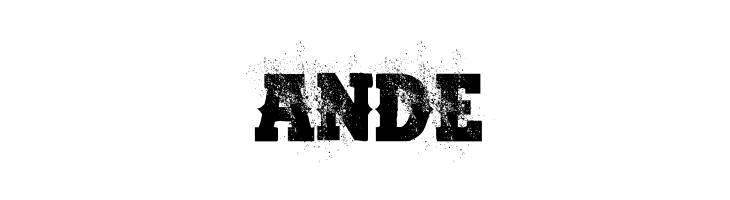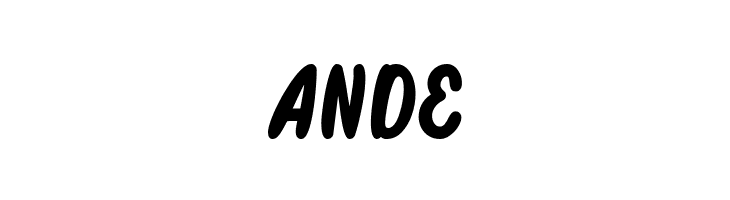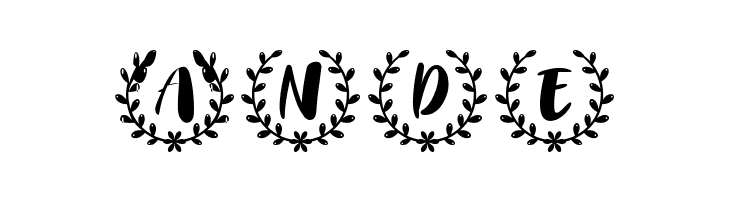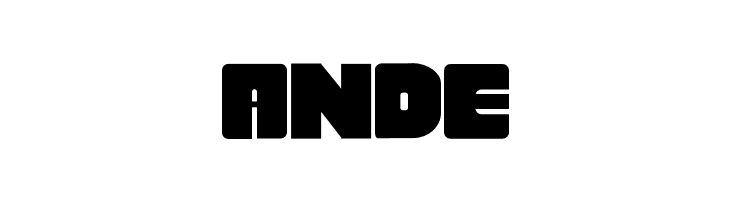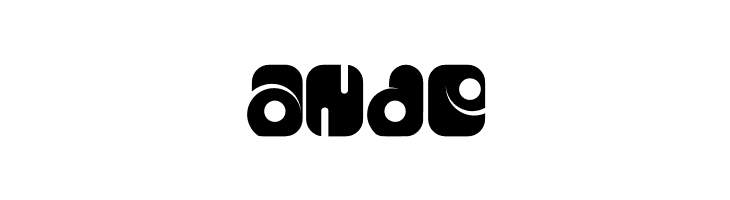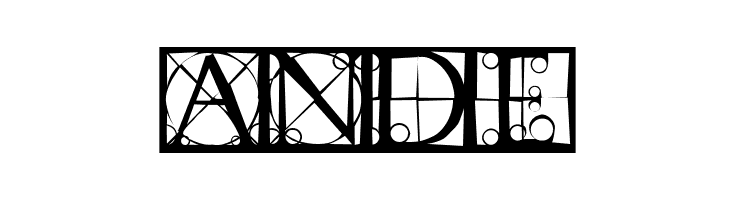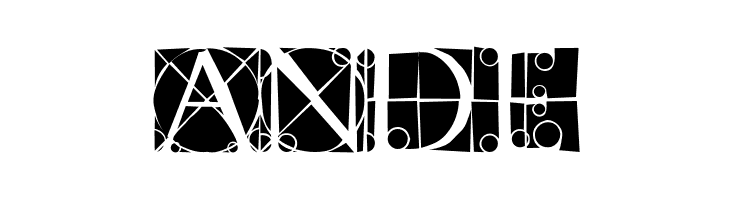
• Cappung
A bold, playful, and handwritten-style font with rounded edges.
• Caprisun Regular
A playful, rounded font with smooth curves and a friendly appearance.
• CAPS
A decorative font with bold letters encased in leafy wreaths, offering a modern and elegant style.
• Caps Lock Regular
A playful, handwritten-style font with consistent strokes and a casual feel.
• CapScratched
A bold, distressed font with a scratched, edgy appearance.
• Capslock
A playful, handwritten font with a casual and dynamic style.
• CapsRandomish
An intricate and decorative font with ornate patterns and high contrast.
• CapsRandomishBricks
An ornate, geometric font with intricate patterns and uppercase letters.
• Capsule Robot
A bold, futuristic font with geometric, capsule-shaped characters and high contrast.
• Captain Badman
A bold, blocky font with geometric shapes and rounded edges.
• CAPTAIN BARBER PERSONAL USE
A bold, distressed font with a vintage, rugged aesthetic.
• Captain Blackjack
A bold, elegant script font with flowing cursive letters and ornate details.
• Captain Canaveral
A bold, geometric font with a modern and impactful style.
• Captain Canaveral
A bold, geometric font with a modern yet slightly vintage style.
• Captain Canaveral 3D
A bold, 3D outlined font with a geometric and impactful style.
• Captain Canaveral 3D
A bold, 3D font with a modern, impactful style and thick outlines.
• Captain Canaveral 3D Italic
A bold, 3D italic font with outlined characters and a modern, dynamic style.
• Captain Canaveral 3D Italic
A bold, 3D italic font with a modern, dynamic style.
• Captain Canaveral Condens Ital
A bold, condensed, and italicized font with a dynamic and modern style.
• Captain Canaveral Condens Ital
A bold, condensed, and italicized font with a modern and dynamic style.
• Captain Canaveral Condensed